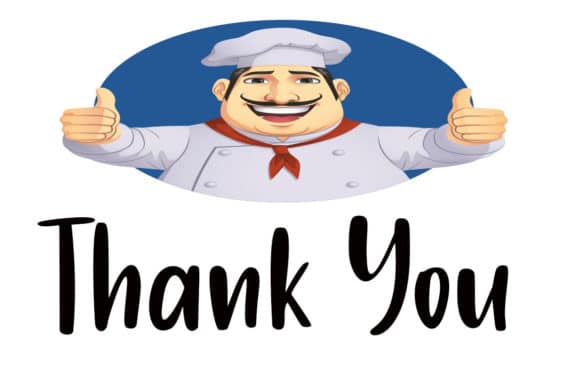
Just one is a fun and friendly handwritten font. Its casual charm makes it look very simple, easy to read and, ultimately, very versatile. This font will look amazing in any context, whether it’s used on a DIY, outdoor project or as a main title!
- Designer: Supersemar Letter